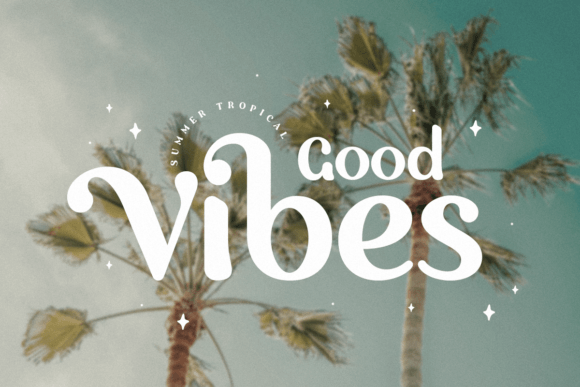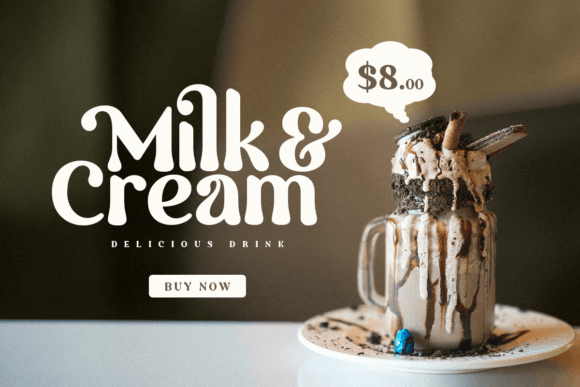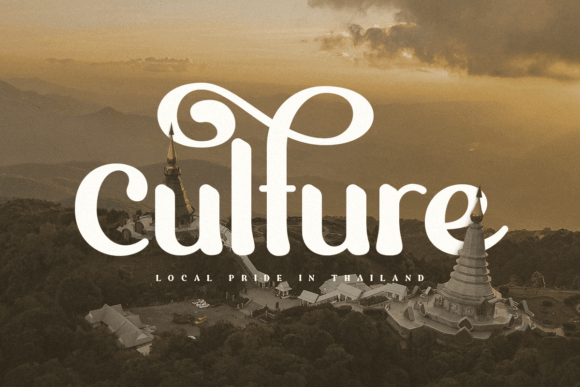
Foghe Font: Retro Aesthetic Display Font for Eye-Catching Logos
About the Foghe Font
Discover the charm of Foghe Font. This font is a perfect blend of modern aesthetics and classic appeal. Foghe is a stylish, slightly retro display font that captures the essence of vintage elegance. Its bold, distinctive letterforms and subtle nostalgic flair make it perfect for standout headlines, classic branding, and eye-catching posters. Elevate your designs with a touch of timeless sophistication using this unique typeface.
Foghe excels in applications requiring strong visual impact, such as logos, headlines, and short impactful taglines. Its retro styling works well for brands aiming for a vintage or classic aesthetic, particularly in the fashion, beverage, or entertainment industries. Avoid using Foghe for body text or lengthy content; its bold forms are not optimized for readability in extended passages.
Pairing Foghe effectively depends on the desired effect. For a sophisticated look, consider a clean sans-serif like Montserrat or a classic serif like Garamond. To emphasize the retro vibe, a geometric sans-serif like Futura would provide a complementary contrast. For a more playful feel, a handwritten script font could be incorporated sparingly.
The overall personality of Foghe is bold and elegant, conveying a sense of timeless quality and subtle sophistication. Its retro influences lend a touch of nostalgia without feeling dated, making it ideal for projects requiring a balance between classic appeal and modern impact.